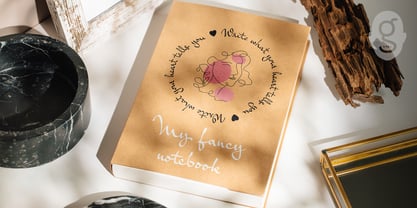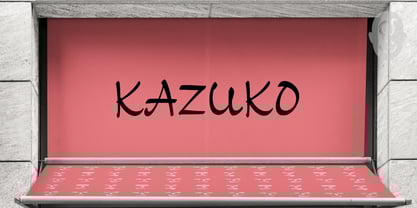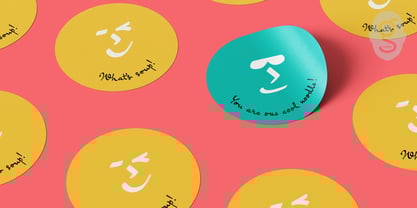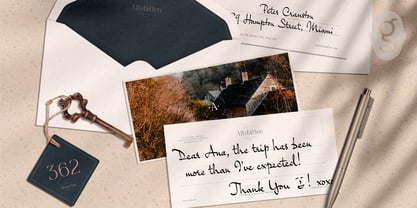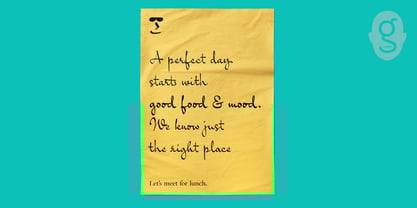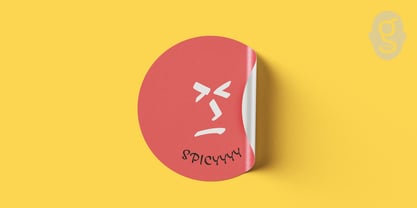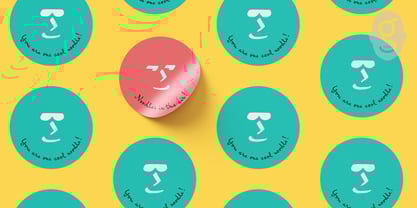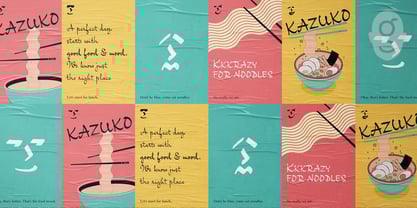
Goskar
von G-Type
Die Schriftfamilie Goskar wurde von Nick Cooke entworfen und von G-Type veröffentlicht. Goskar enthält 4 Stile und Familienpaketoptionen.
Goskar is a dynamic script family having four weights from Light to Black.
Like it’s close relative Rollerscript the character set includes small caps, arrows, underlines, icons & emoticons, plus an additional style set which swaps the default z & r glyphs to their more basic alternates.